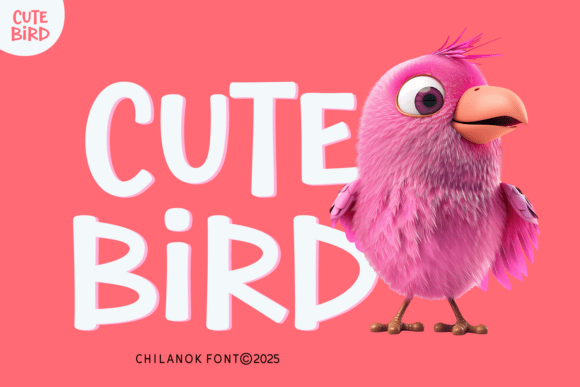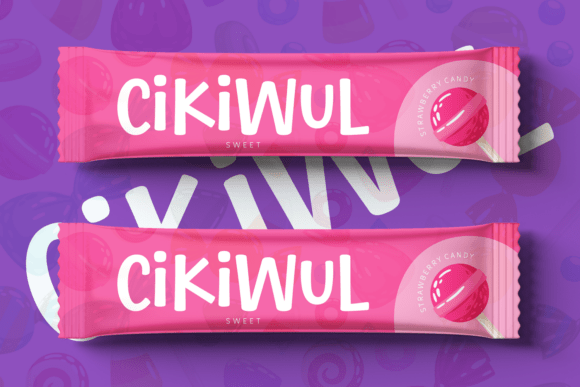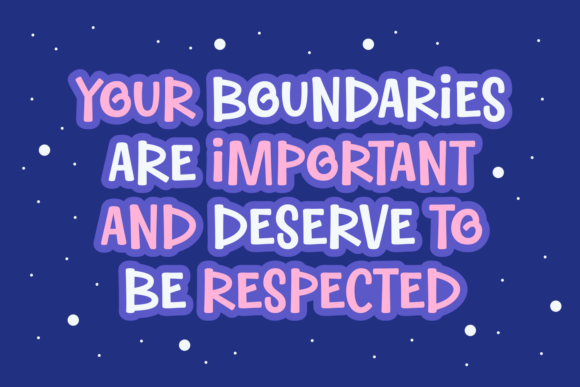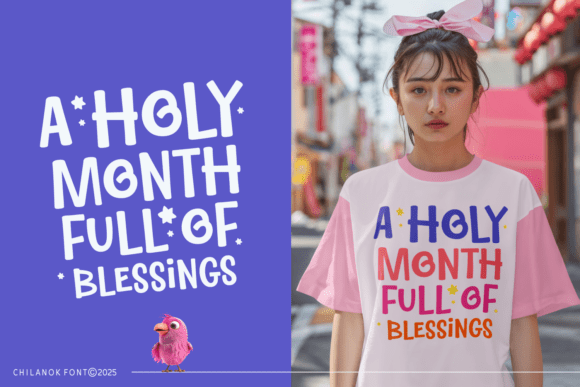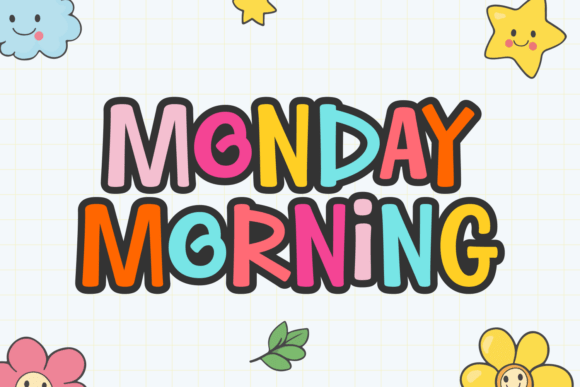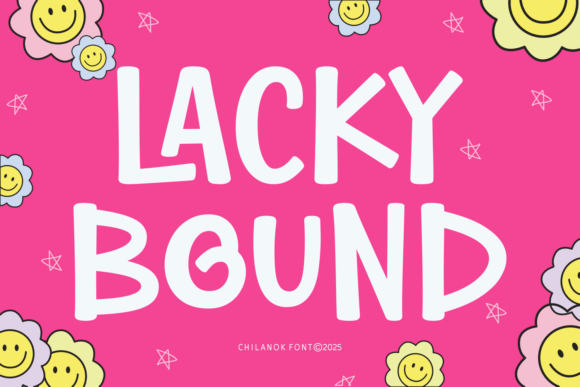
Discover the Delightful Versatility of Chilanok Font
I’ll never forget the time I was working on a project for a children’s birthday party, and I just couldn’t find the perfect font to capture the playful and fun vibe I was going for. The client wanted something that would appeal to kids and parents alike, but everything I tried seemed either too boring or too over-the-top. That’s when I stumbled upon Chilanok Font, and it was love at first sight! 💕
With its attractive design, Chilanok Font captures an exciting blend of fun and freshness, making it an interesting choice for any project. It embodies a captivating charm that exudes sweetness, making it a darling among cute fonts. Its playful nature adds a pop of vitality, mirroring a kid’s joyful spirit, while its unique attributes are reminiscent of school fonts that are always in style.
An Honest Review of Chilanok Font
• ✨ Attractive and unique design that stands out from the crowd
• ✅ Perfect for kid-centric creations, baby-themed projects, and more
• 💖 Effortlessly brings out affectionate warmth, making it a love font in its truest sense
• 🎉 Playful and precious, with a perfect balance of fun and elegance
• 🤔 May not be suitable for very formal or professional projects, as it can come across as too playful
• ⚠️ Limited use of uppercase letters, which can be a bit restrictive for some designs
The Backstory of Chilanok Font
Chilanok Font was designed by a team of creatives who wanted to create a font that would capture the playful and fun spirit of childhood. Inspired by the colorful and whimsical world of kids, Chilanok Font was born. The designers aimed to create a font that would be both cute and elegant, with a unique charm that would make it stand out from the crowd.
Q: What is Chilanok Font best used for?
A: Chilanok Font is best used for kid-centric creations, baby-themed projects, and any design that requires a playful and fun vibe.